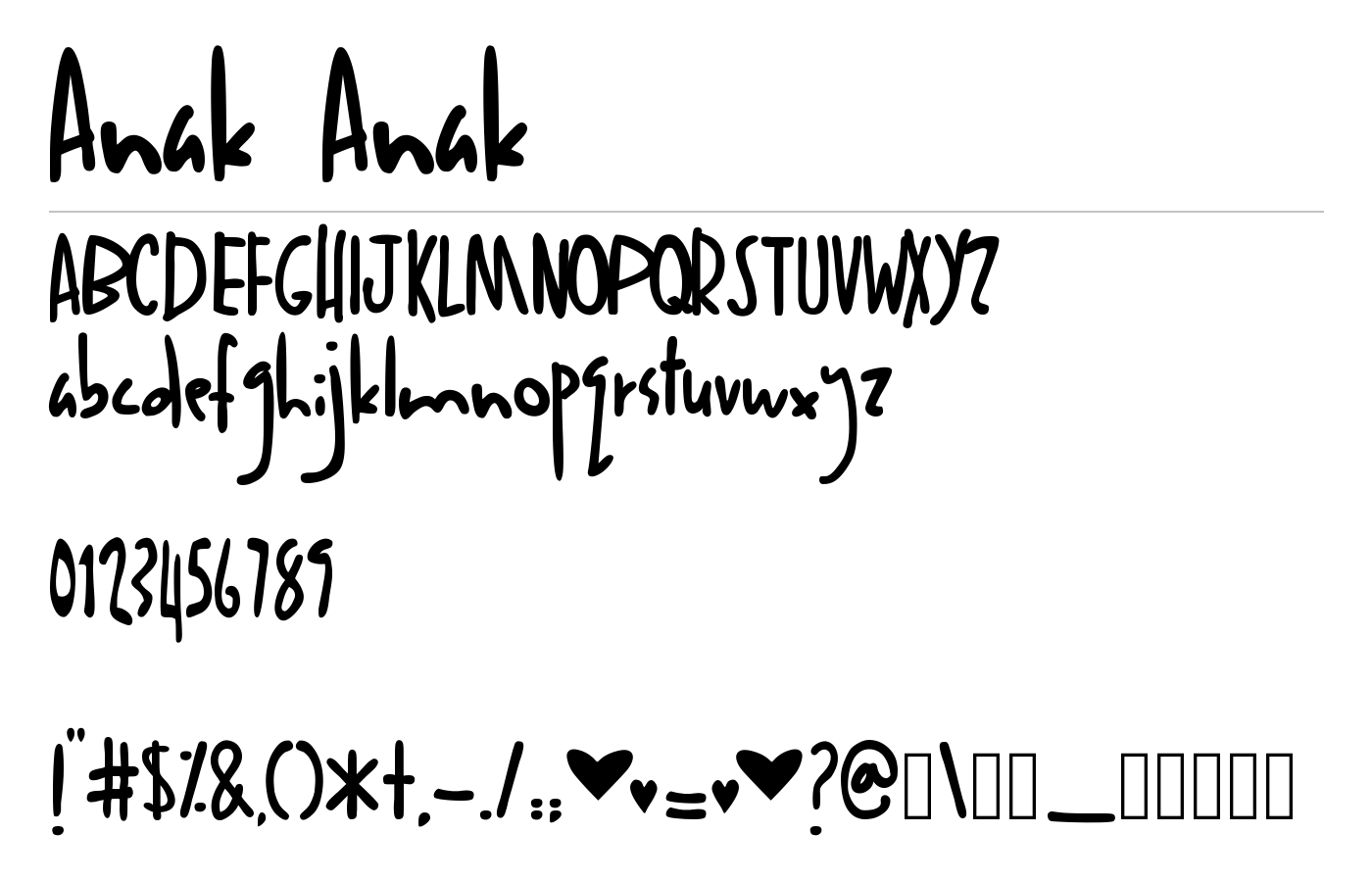
Anak Anak is a playful and lively handwritten font featuring tall, narrow letterforms with a casual, organic feel. Its uneven strokes and quirky shapes give it a charming, youthful character, making it ideal for informal designs, children’s projects, or creative branding that seeks a friendly and approachable vibe. This font works well in headlines, logos, and packaging where a personal touch and whimsical energy are desired.
Anak Anak Font
About Anak Anak Font